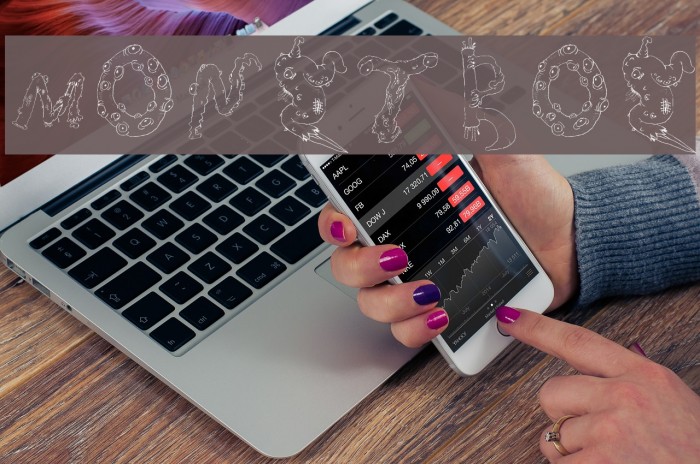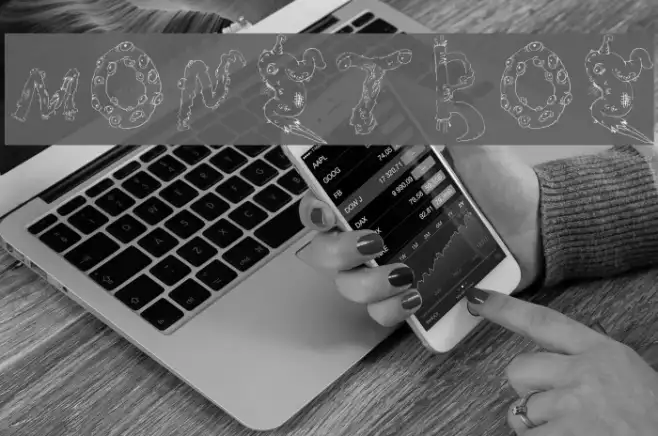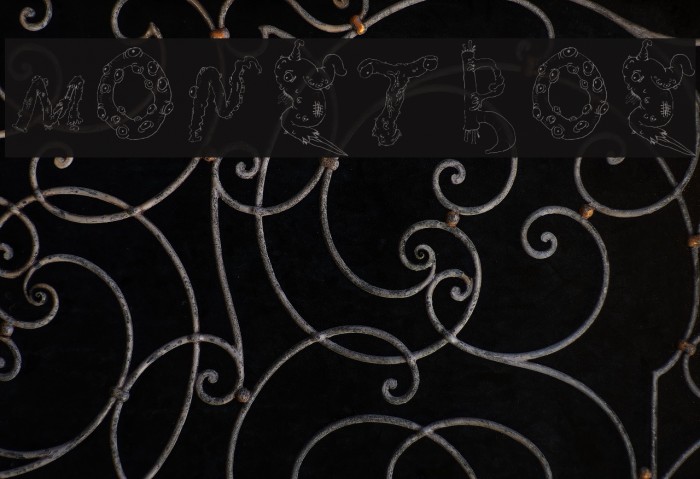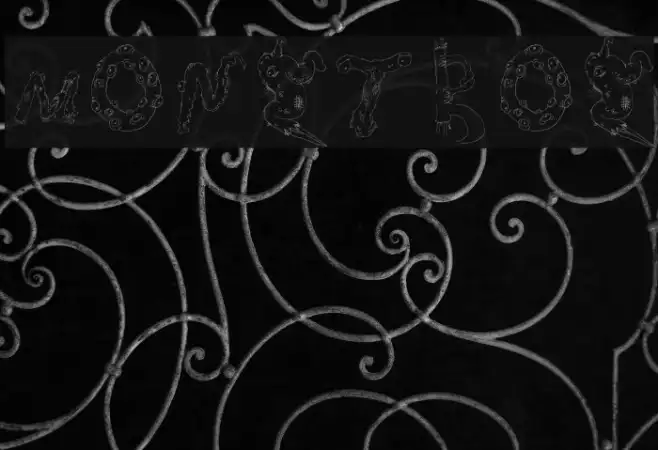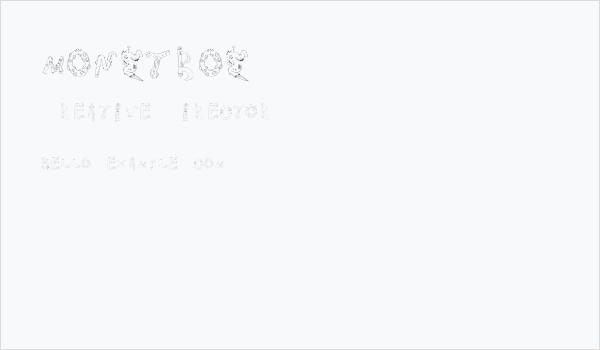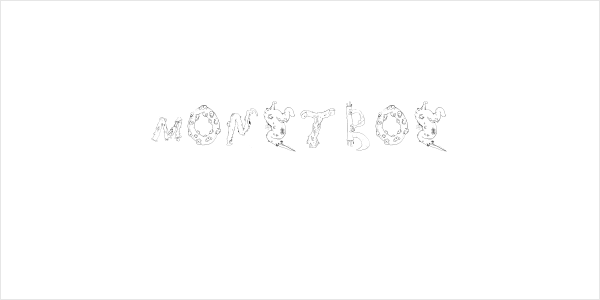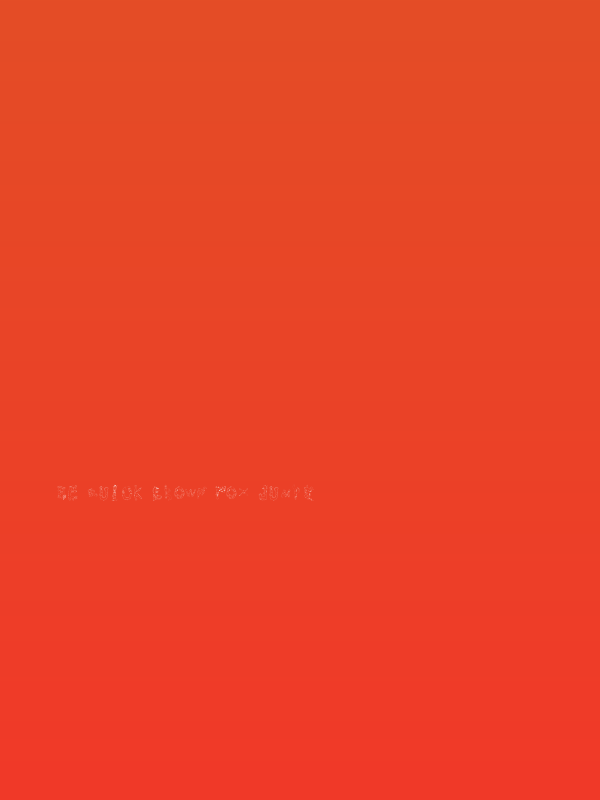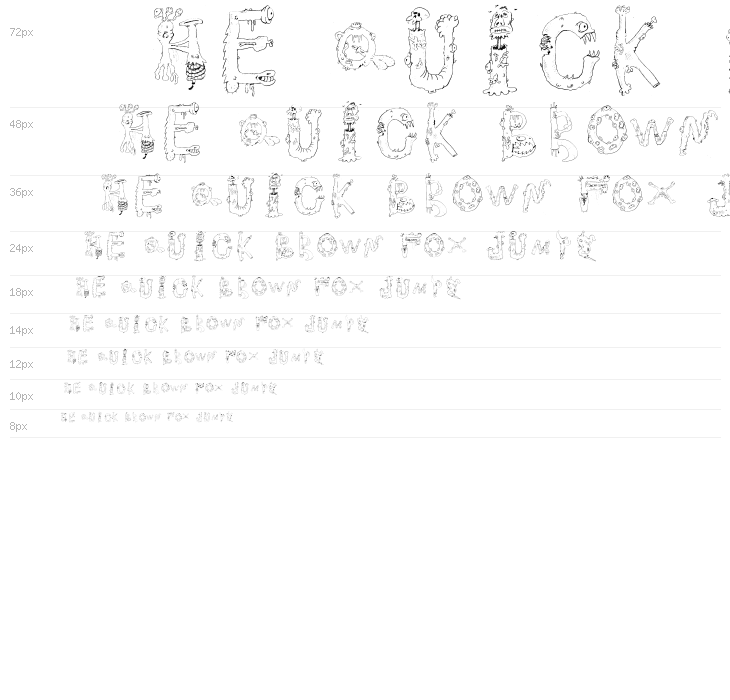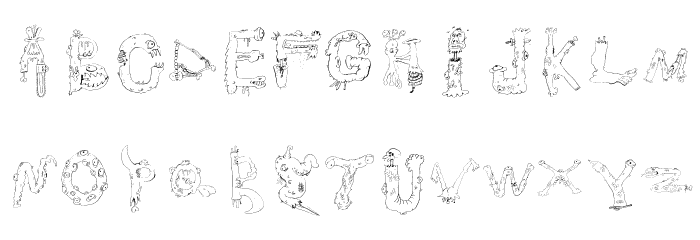
monstros Font
monstros Description
This playful and imaginative font is characterized by its whimsical and quirky design, with each letter formed by a unique monster illustration. The characters are filled with intricate details, showcasing a variety of textures and shapes that give each letter a distinct personality. The font is highly decorative, with a hand-drawn style that adds a sense of fun and creativity. The letters are irregular in shape, with varying heights and widths, contributing to its dynamic and lively appearance. This font is perfect for projects that require a touch of humor and creativity, making it ideal for children's books, playful branding, or Halloween-themed designs.
| Proposed Projects | Ideal for children's books, playful branding, Halloween designs, and creative posters. |